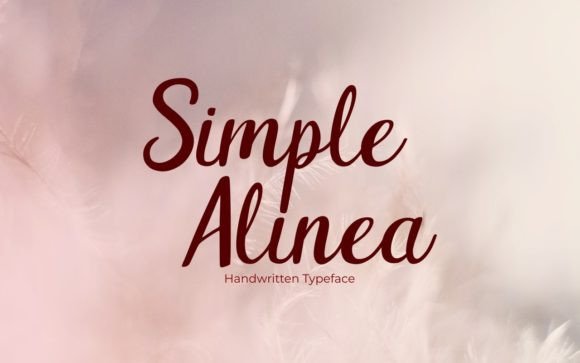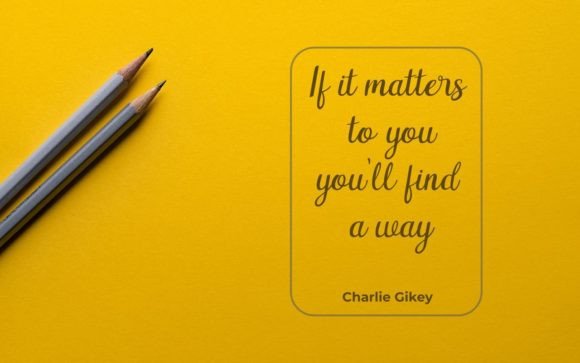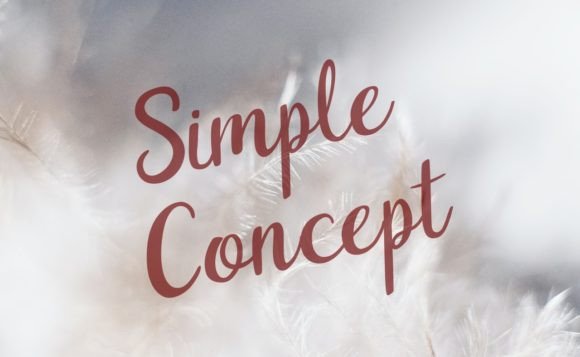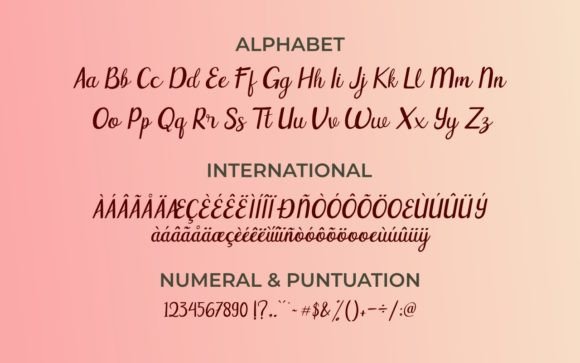
Script Fonts Simple Alinea Font 0 174 FacebookTwitterPinterestWhatsApp 1 of 4 Simple Alinea Font Poster 2... Simple Alinea Font Poster 3... Simple Alinea Font Poster 4... About Simple Alinea Font Simple Alinea is a unique round-lettered handwritten font that was carefully crafted to produce the desired results. This font can be used to write titles, invitations, letters, and many other types of products. DOWNLOAD NOW